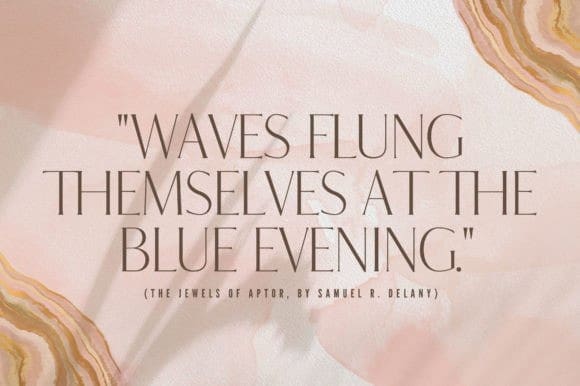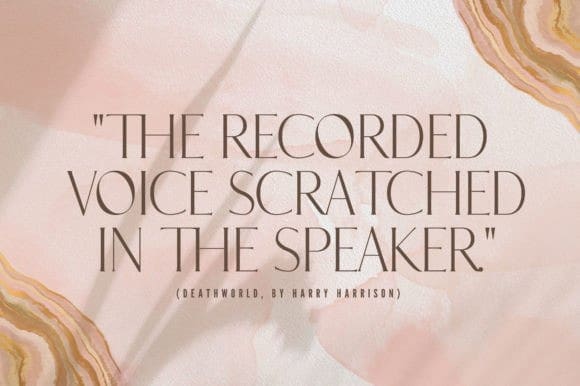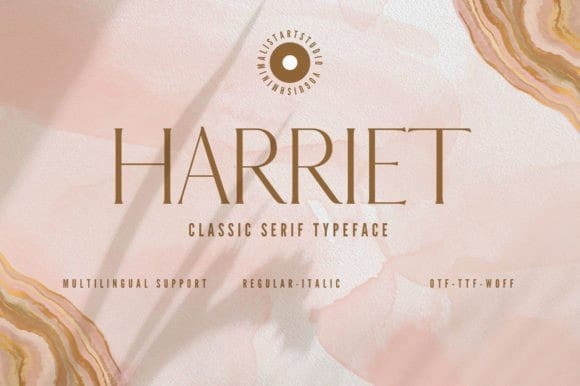
HARRIET FONT
Harriet Font is a classic, thin and delicate serif typeface. Its elegant appearance and precise glyph structure make it the perfect choice when it comes to packaging design, fragrance design, titling, cosmetics design, website banners, and many more. Use it in your creations so you can notice how fastly it becomes one of your favorite fonts.